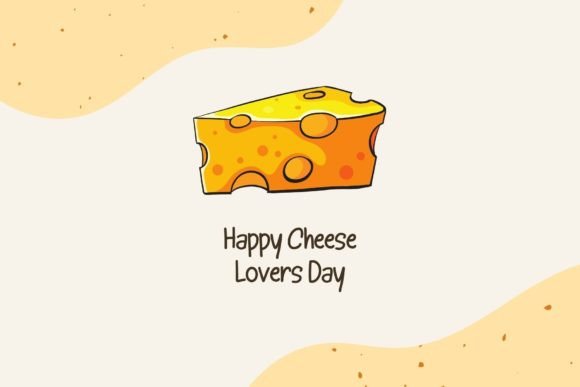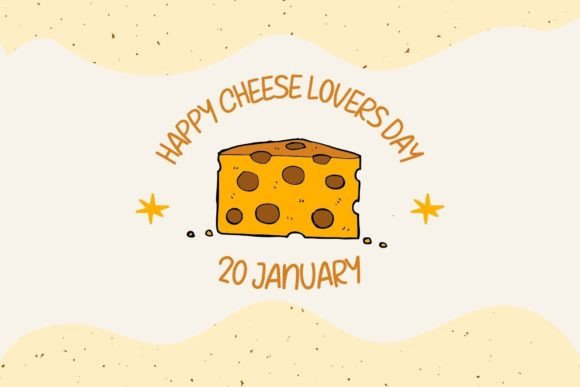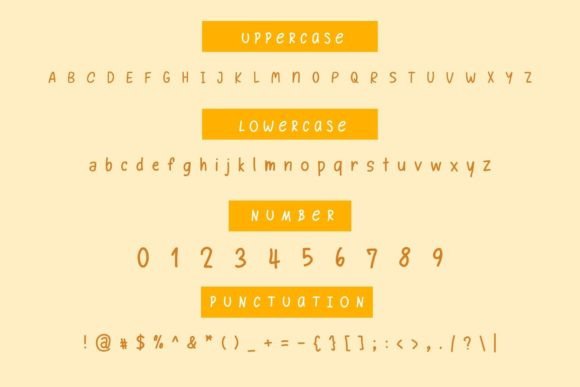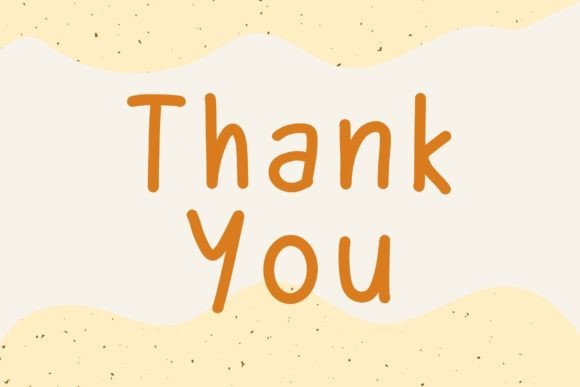
About Me Font: Your Creative Companion
Have you ever been scrolling through your social media feed, and suddenly, a post catches your eye? Maybe it’s a beautifully designed blog post or an adorable invitation. Whatever it is, you can’t help but wonder what makes it so special. For many designers, the secret lies in the font used. And when it comes to creating a personal and authentic touch, About Me Font is the perfect choice.
About Me Font is a delightful, handwritten font that adds a playful and whimsical touch to any project. Whether you’re designing a blog post, a logo, or a greeting card, this font is sure to bring a smile to your face and your audience’s. Its versatility and charm make it a valuable asset for designers who want to add a personal touch to their work.
About Me Font Key Features
- Font Family: About Me Font is a custom-designed sans-serif font family.
- Font Size: The font comes in a range of sizes, from 12 to 72 points, making it suitable for various design applications.
- Resolution: Optimized for high-resolution displays, with a resolution of 300 DPI or higher.
- Unique Characteristics: The font features a modern, clean design with subtle rounded edges and a friendly tone, making it perfect for personal and professional use.
About Me Font Review
As a designer, I was excited to dive into the About Me Font and see what it has to offer. Here’s my honest review.
- Customizability: I loved how easy it was to customize the font to fit my design style. The options for color, size, and spacing were extensive and made it simple to achieve the desired look.
- High-quality typography: The font itself was beautiful and well-designed, with clean lines and a professional feel.
- Not ideal for complex designs: While the font is great for simple designs, I found it struggled to handle more complex layouts.
Overall, I was pleased with the About Me Font, but I did encounter some limitations. If you’re looking for a high-quality, customizable font for simple designs, this might be a great option. However, if you’re working on more complex projects, you may want to consider other options.
Use About Me Font to create a consistent brand identity across all your designs.
Experiment with different font sizes and colors to create visual hierarchy and emphasis.
Use About Me Font in conjunction with other design elements, such as images and icons, to create a visually appealing design.
About Me Font is commonly used in:
Business cards and resumes